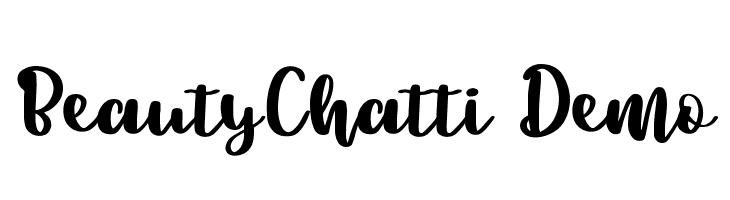
A bold, brush-style font with dynamic, textured strokes.
A bold, brush-stroke style font with an artistic and dynamic flair.
A bold, brush-style script font with dynamic, flowing strokes.
A dynamic, brush-stroke inspired font with expressive and artistic flair.
A bold, brush-style font with expressive, hand-drawn strokes.
A bold, expressive script font with dynamic brush strokes.
A delicate, flowing script font with a handwritten signature style.
A bold, brush-style font with dynamic and expressive strokes.
A bold, brush-style font with dynamic, hand-drawn strokes.
An elegant script font with decorative swashes and flowing lines.
Expressive script font with ornate swashes and artistic flair.